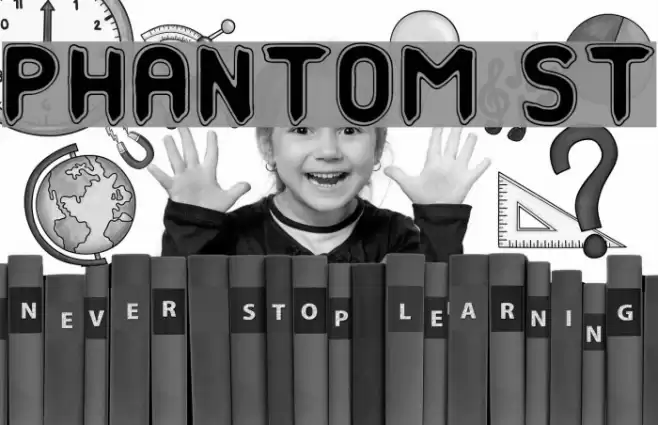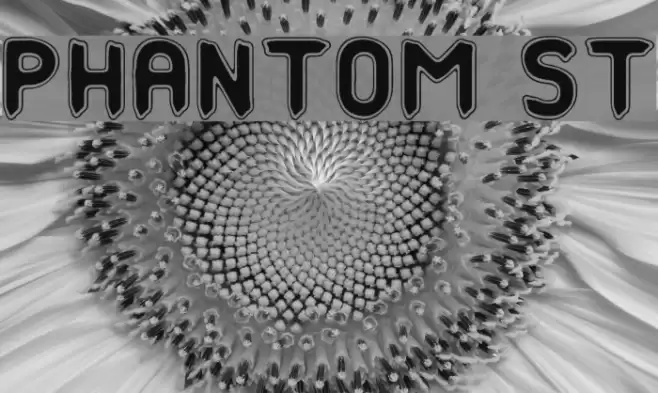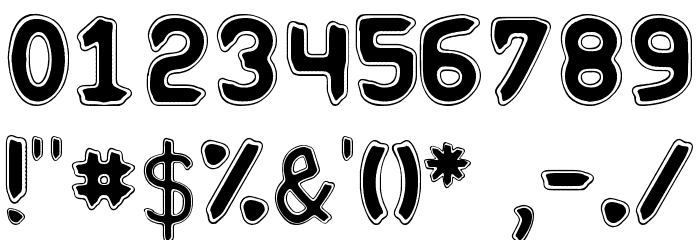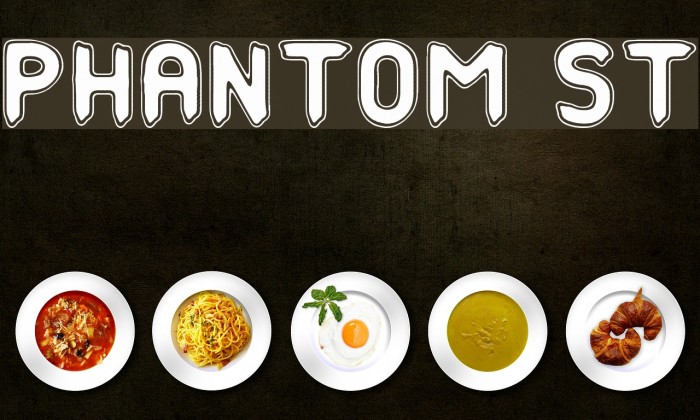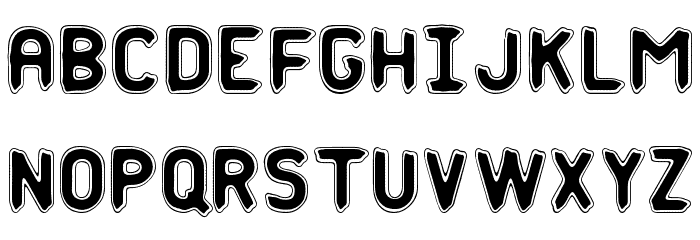
Phantom St Font
Phantom St Description
This font features a bold, playful style with a thick outline that gives it a three-dimensional effect. The characters are rounded and slightly condensed, providing a unique and eye-catching appearance. The uppercase and lowercase letters maintain a consistent design, while the numerals and special characters complement the overall aesthetic. Its boldness and distinct outline make it suitable for designs that require a strong visual impact. The font's playful nature is ideal for creative projects, adding a touch of fun and energy to any design.
A bold, playful font with a thick outline and rounded characters from Comic fonts.
- Proposed Projects: Ideal for posters, children's books, comic strips, and playful branding.
- Overall Style: Playful, Modern